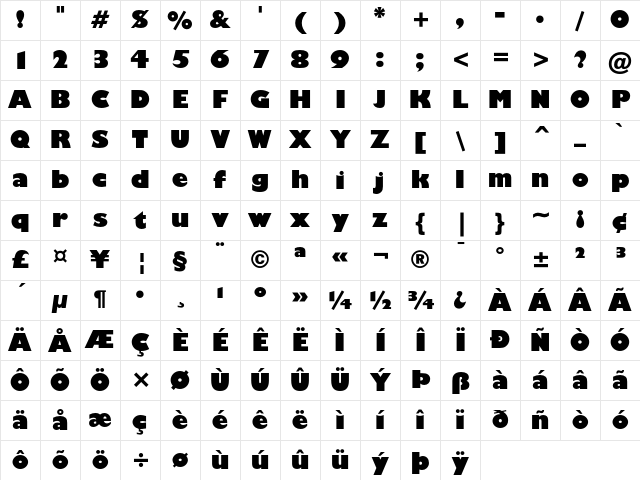
Humanist 521 Ultra Bold
Style: Ultra Bold
Complete Humanist 521 Ultra Bold glyph index. Displaying only characters natively supported by Humanist 521 Ultra Bold font.
Design Context for Humanist 521
Humanist 521 is a composed and adaptable typeface that performs quietly and consistently across a wide range of design contexts. Its bold stroke weight gives it real presence on the page.